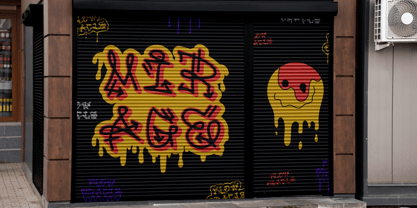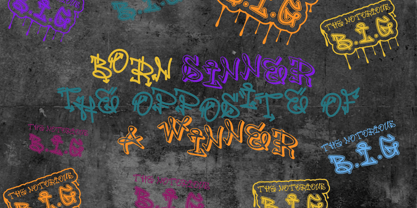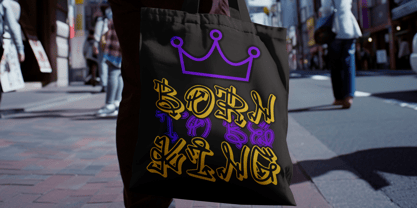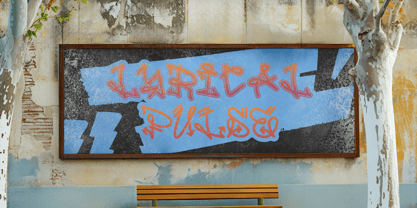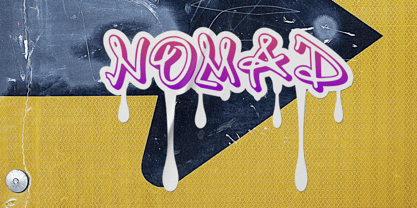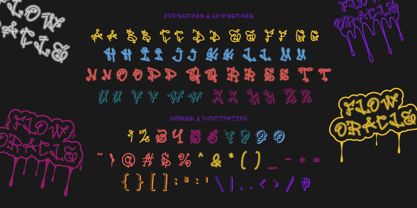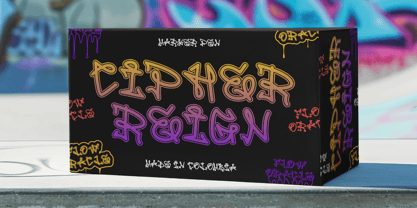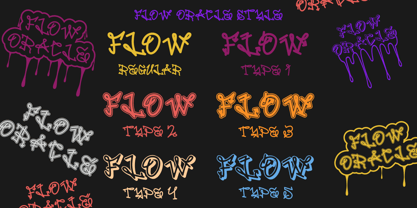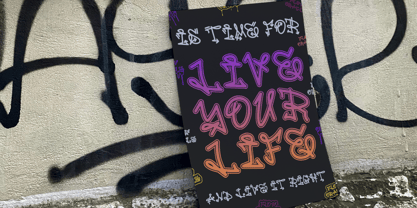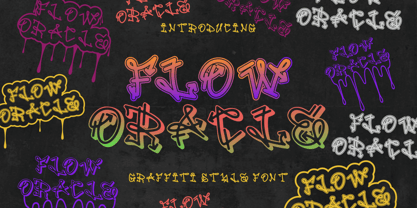
Flow Oracle
by Putracetol
The Flow Oracle Font Family was designed by Putra Novembria Candra Kusuma and published by Putracetol. Flow Oracle contains 6 styles and family package options.
Introducing Flow Oracle - Graffiti Style Font, a vibrant and dynamic typeface inspired by the bold artistry of street graffiti. This font features a mix of dripping paint effects, irregular shapes, and playful curves, capturing the raw essence of urban street art. Its multi-colored gradient designs, ranging from neon purples and oranges to electric greens, add a lively and contemporary edge, perfect for modern creative projects. The varied letter styles in this font mimic authentic graffiti tags, offering versatility while staying true to the street culture aesthetic.
The background of this presentation highlights a gritty concrete wall, adding texture and depth, further emphasizing the urban theme. Flow Oracle is ideal for projects such as logos, posters, stickers, album covers, or any design needing an edgy, youthful touch. Whether you're creating a bold branding concept or capturing the rebellious spirit of street culture, this graffiti-inspired font will elevate your designs with energy and authenticity.